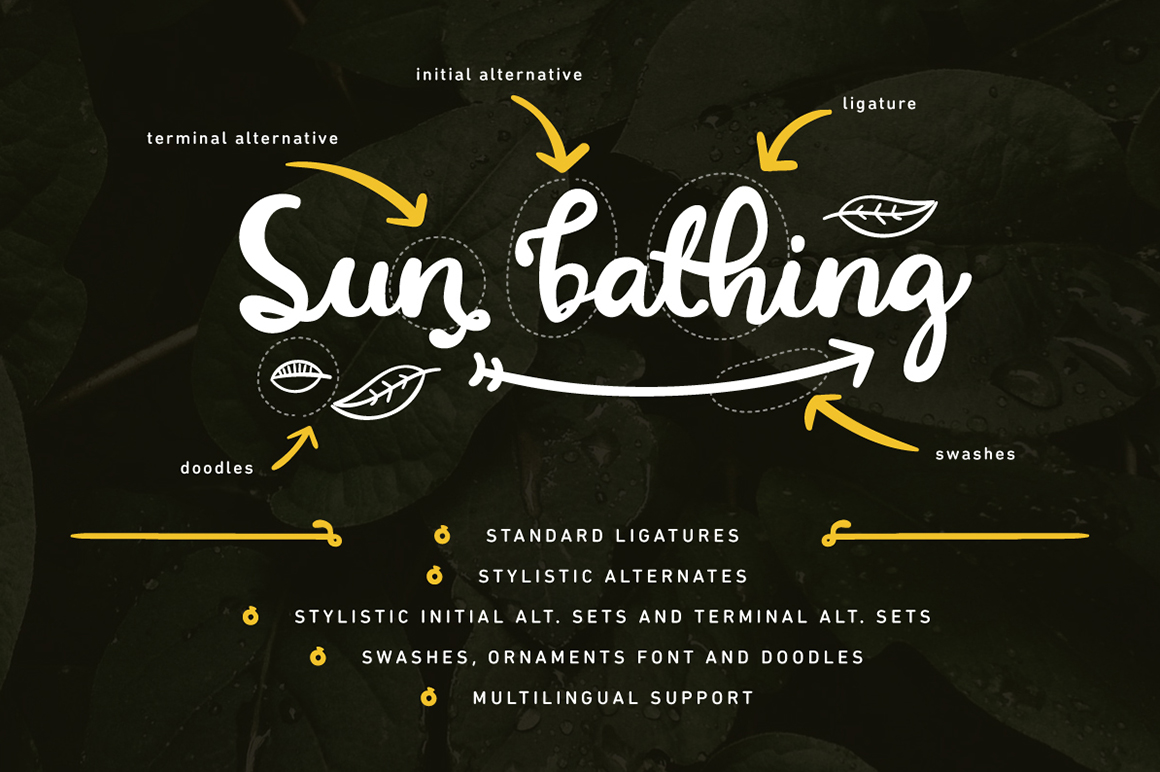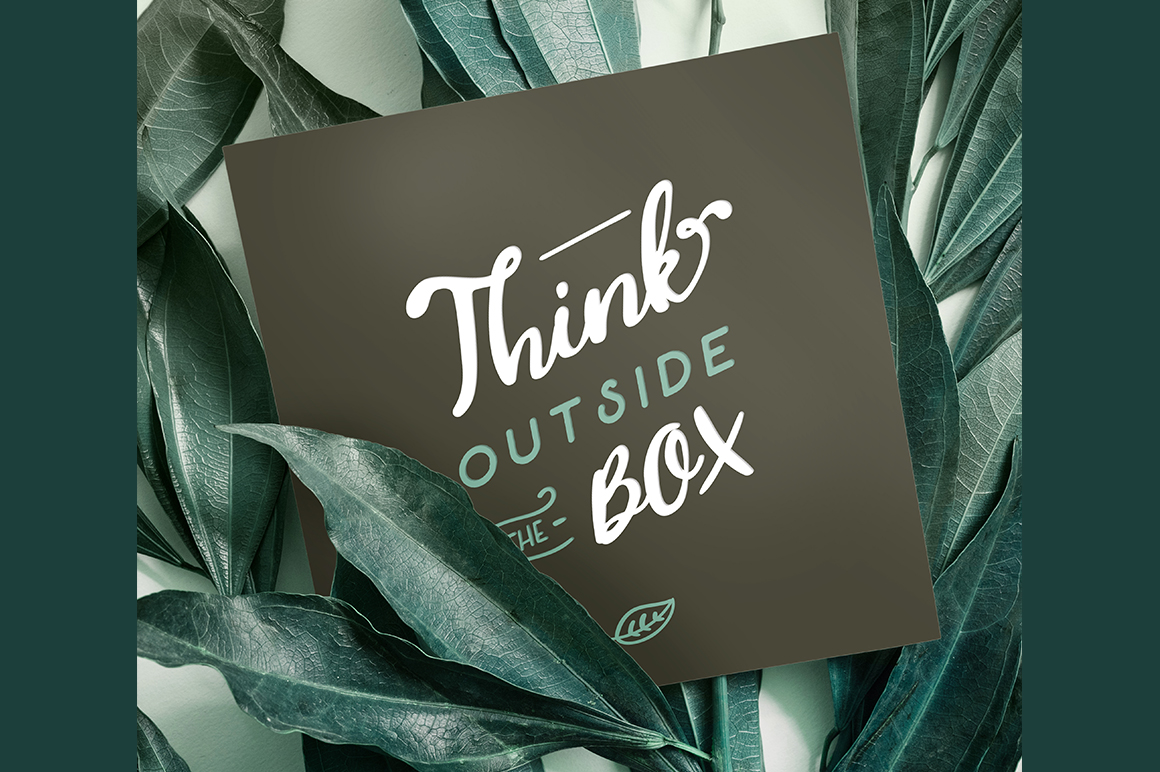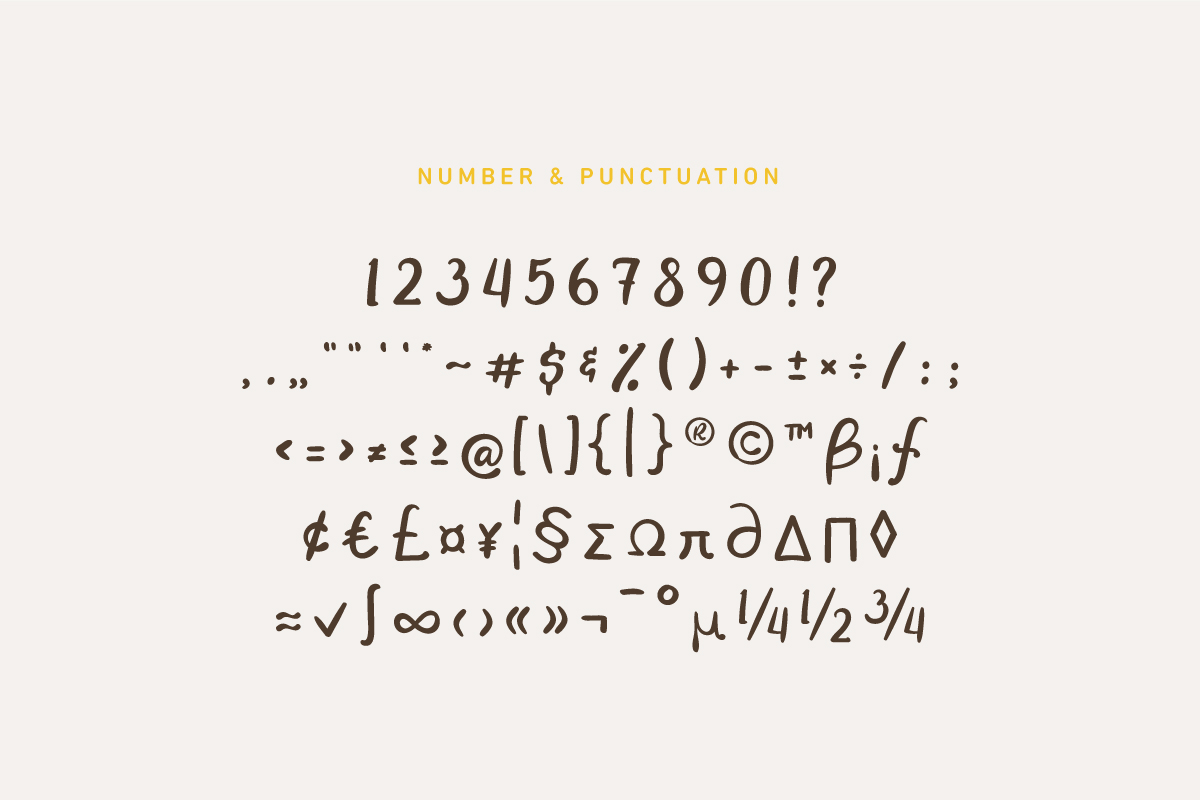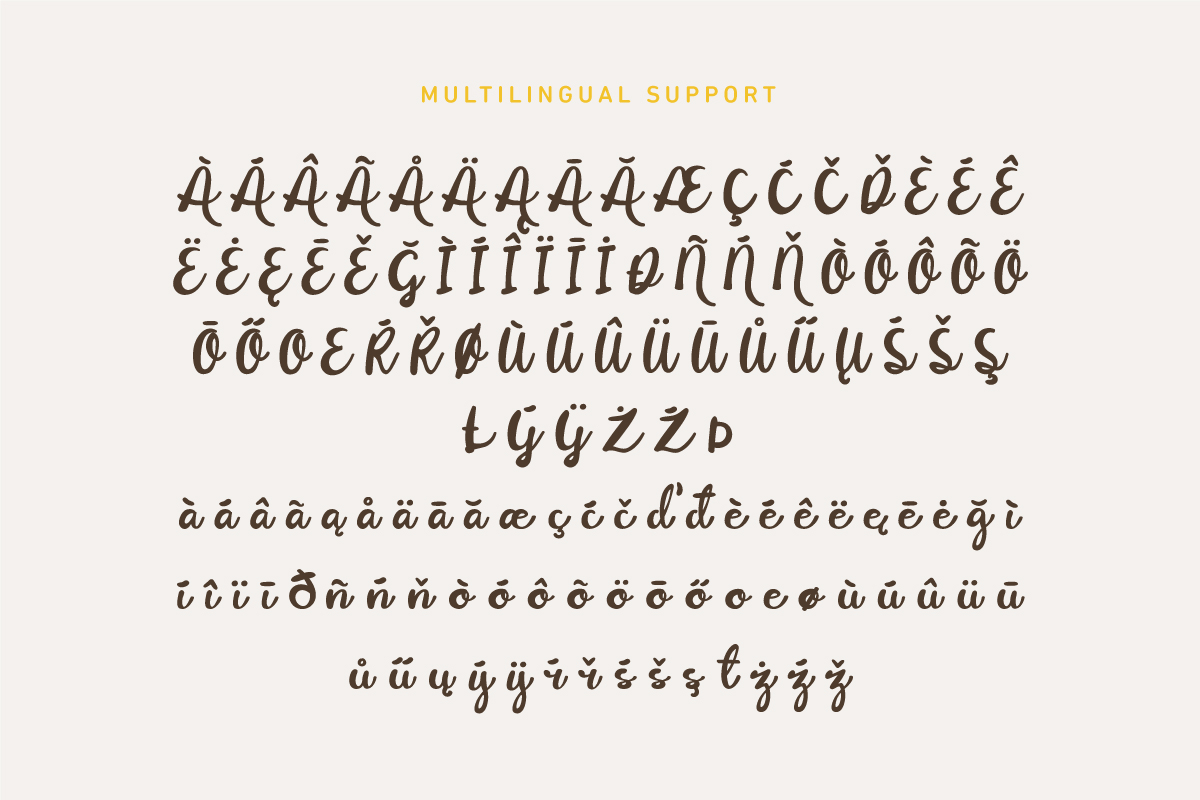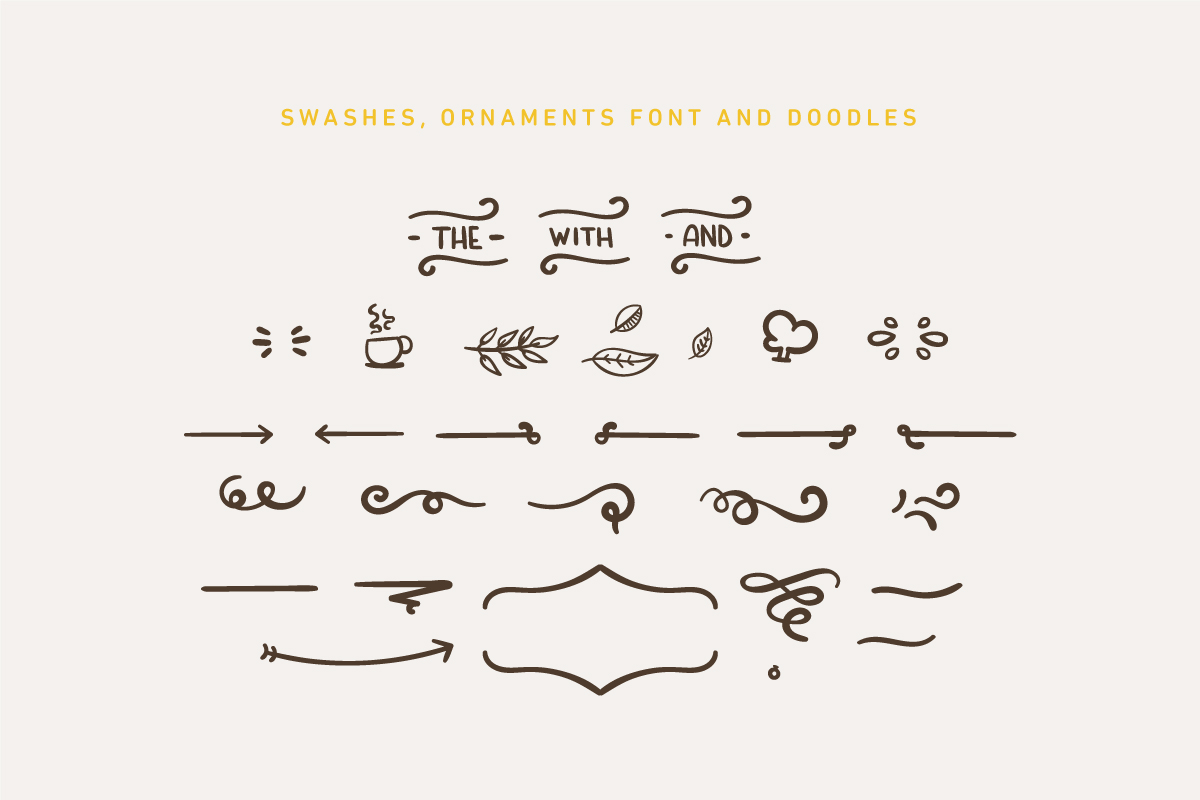
Mimitee Free Font
Mimitee free font is modern handwriting with unique, touching and beautiful curves on each letter. Mimitee font comes with 330+ glyphs with many features in general. Mimitee font is very good for use in food products, beauty products, wedding invitations, clothing, branding, and many more.